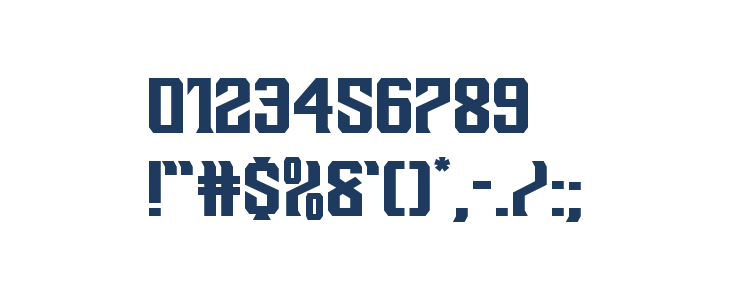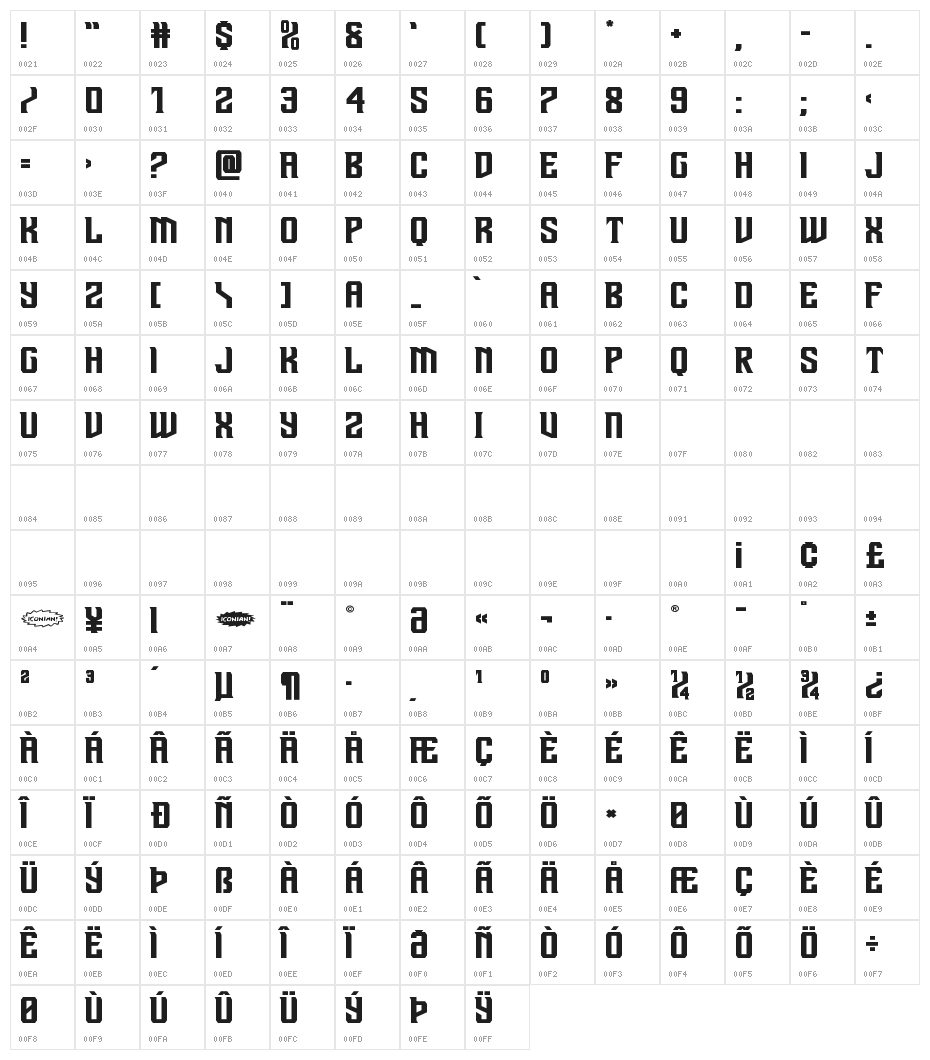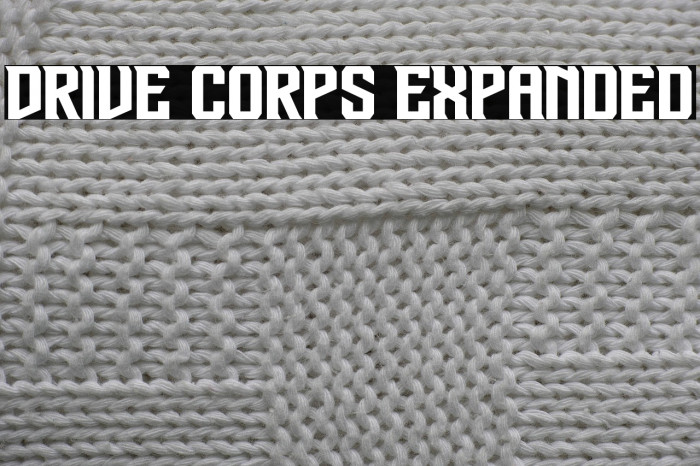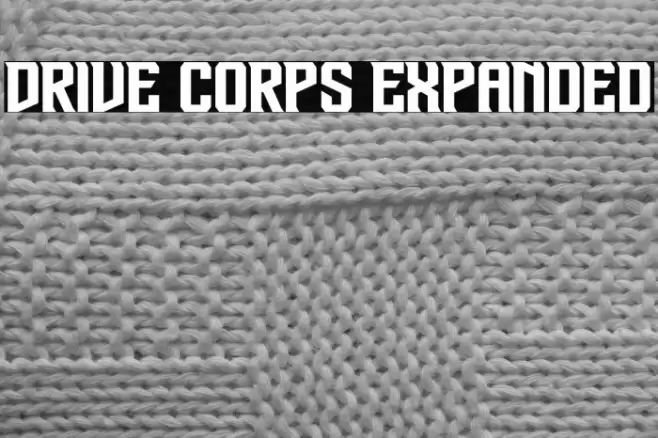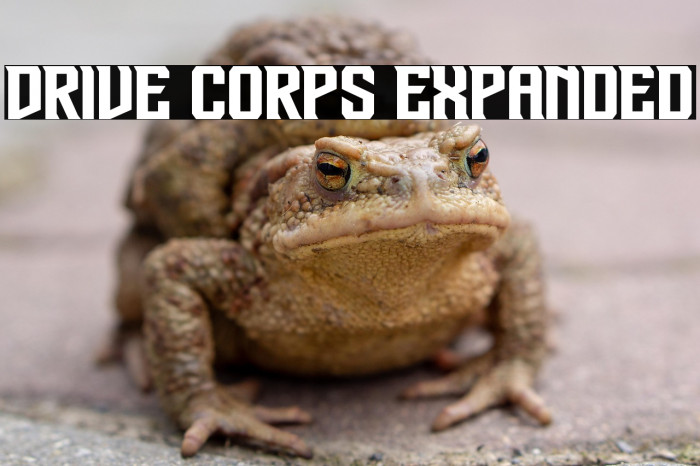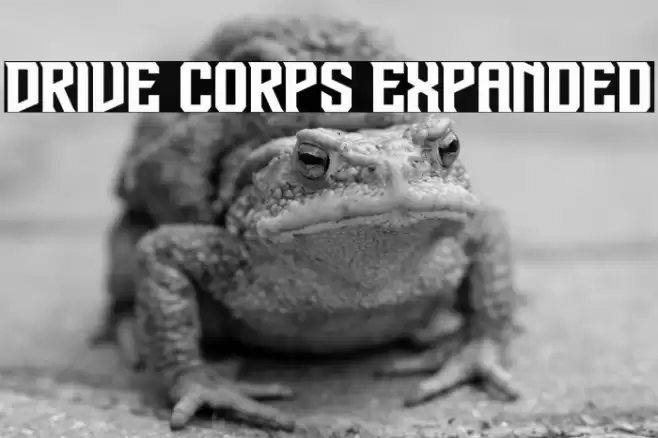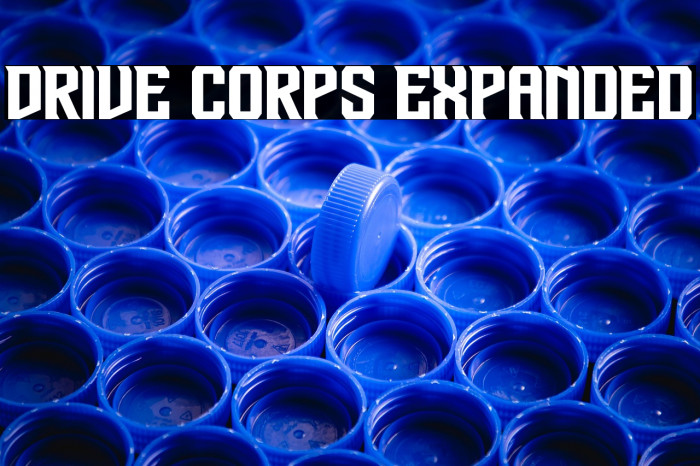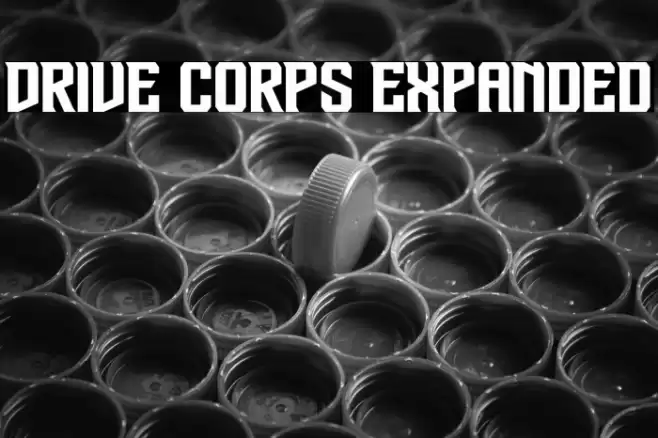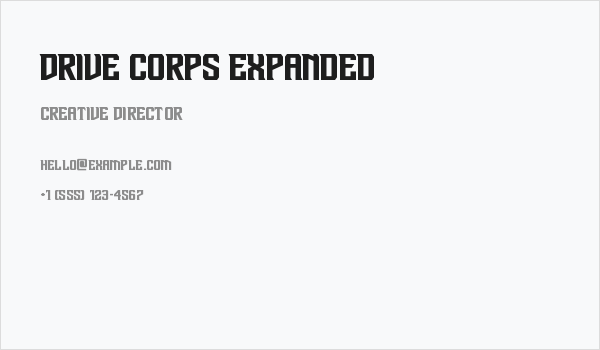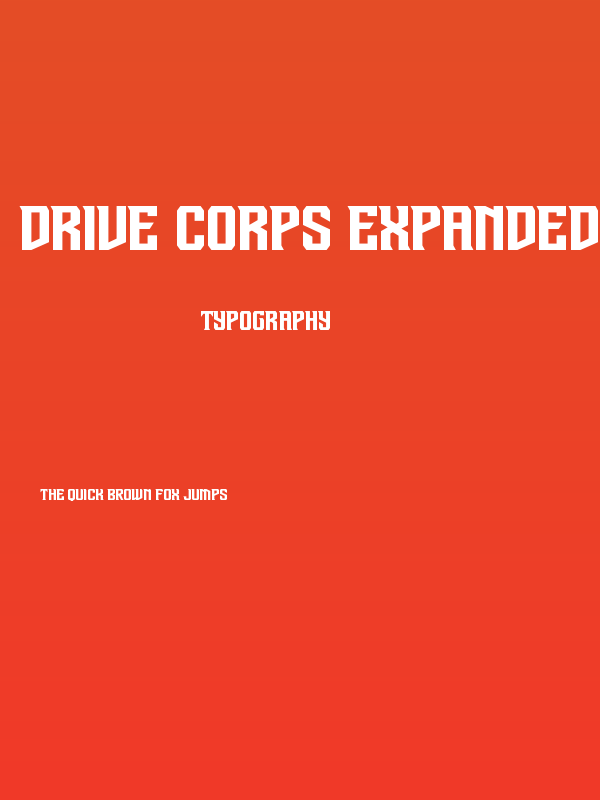
Drive Corps Expanded Font
Drive Corps Expanded Description
This font features a bold and striking design with a distinctly geometric and angular style. The characters are crafted with sharp edges and a uniform thickness, giving it a strong and commanding presence. The uppercase letters are particularly prominent, with a consistent height and width that enhances readability. The numerals and special characters maintain the same boldness, ensuring a cohesive look across all text. This font's expanded width allows for a more spacious and impactful appearance, making it ideal for attention-grabbing headlines and titles.
| Proposed Projects | Ideal for posters, logos, branding, and any project requiring a strong visual impact. |